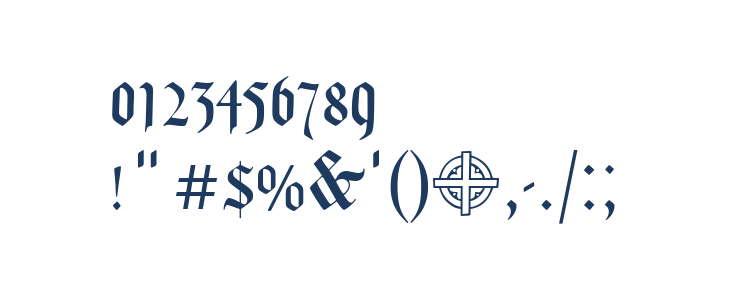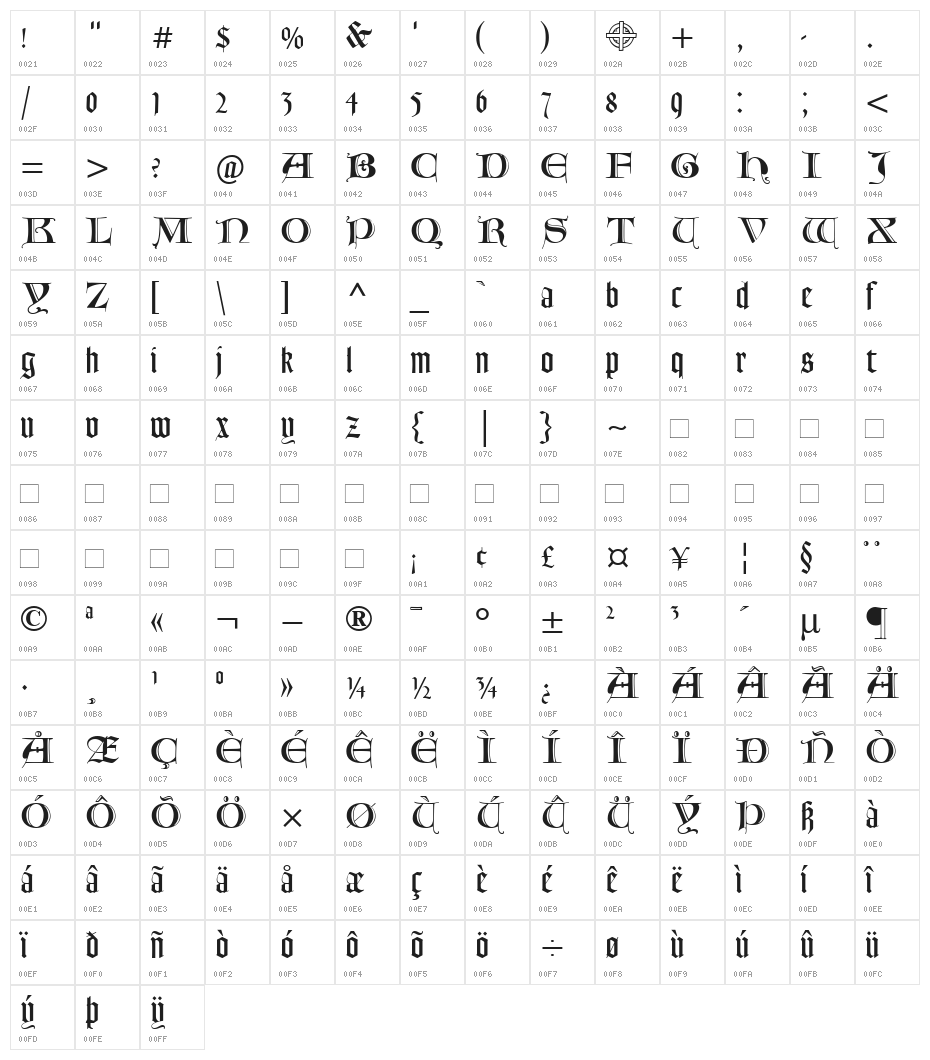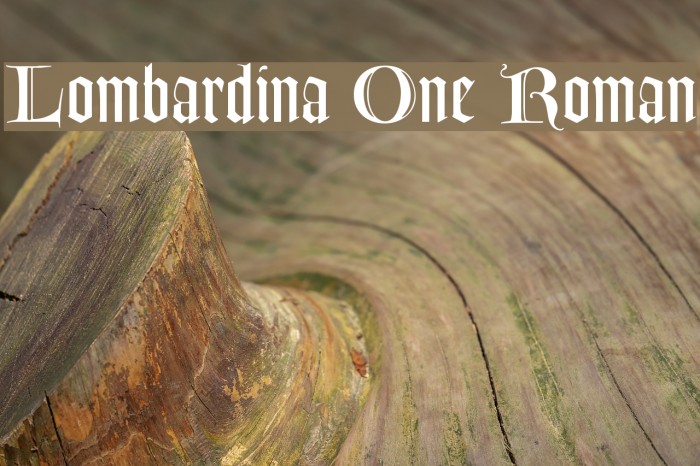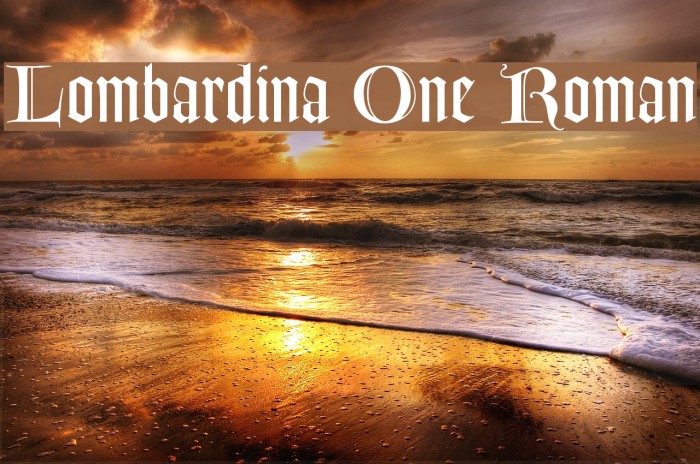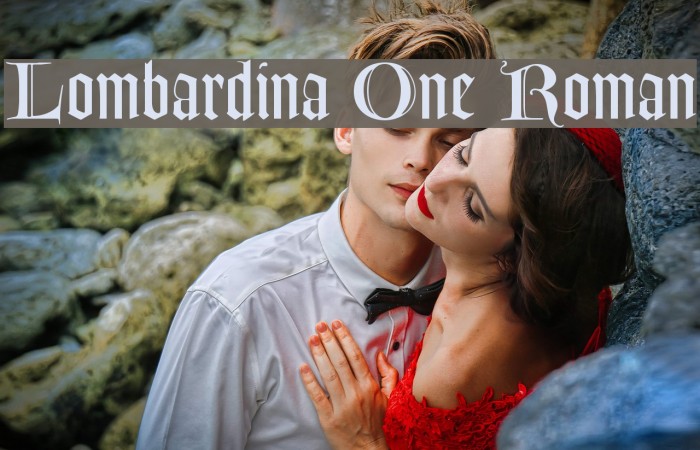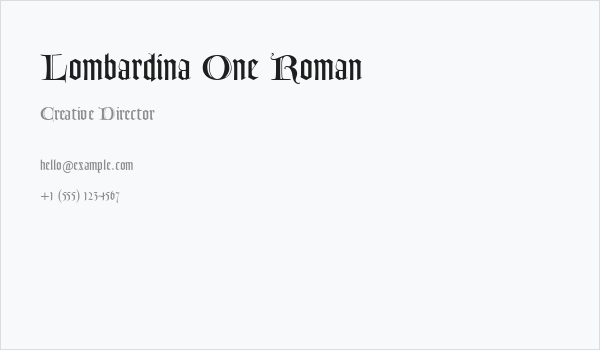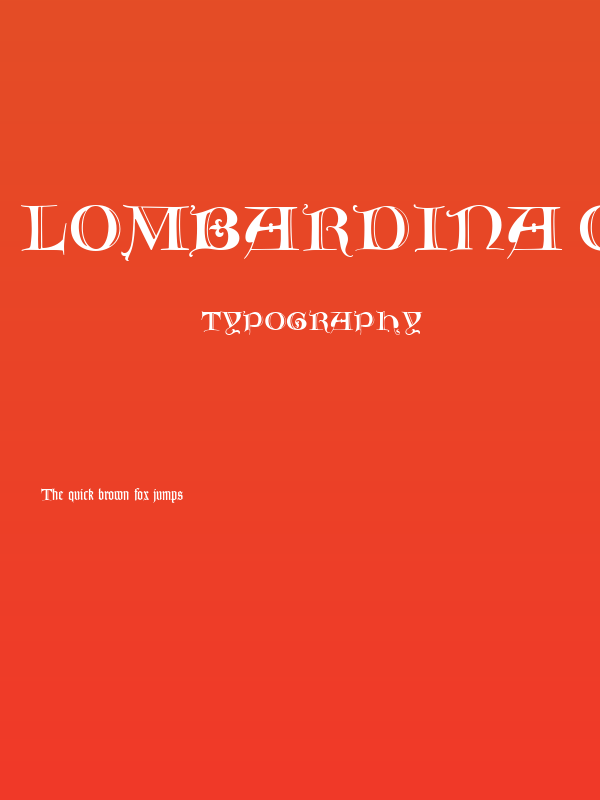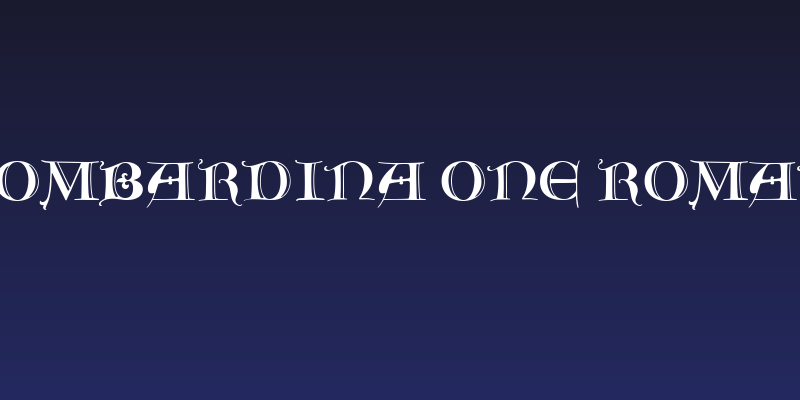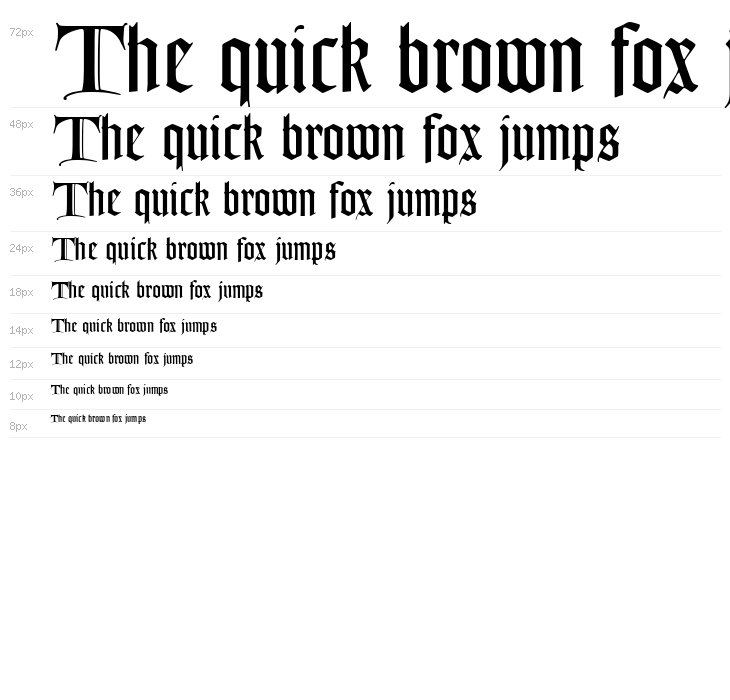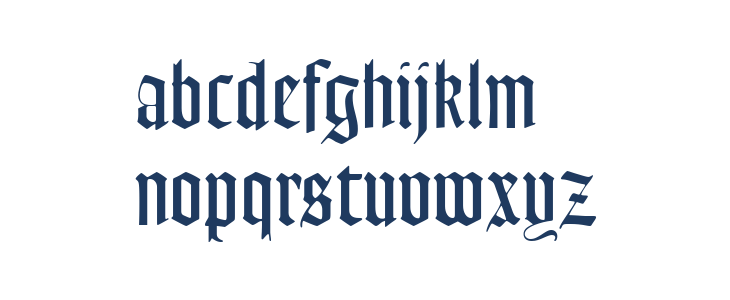
Lombardina One Roman Font
Lombardina One Roman Description
This font features a distinct blend of medieval and modern elements, characterized by its ornate and intricate design. The uppercase letters exhibit a strong, angular structure with decorative flourishes, while the lowercase letters maintain a bold, gothic appearance. The numerals are stylized with sharp edges, complementing the overall aesthetic. Special characters are uniquely crafted, adding to the font's decorative appeal. This typeface is ideal for projects that require a historical or fantasy theme, offering a dramatic and eye-catching presence.
| Proposed Projects | Ideal for fantasy book covers, historical event posters, themed invitations, and logo designs. |